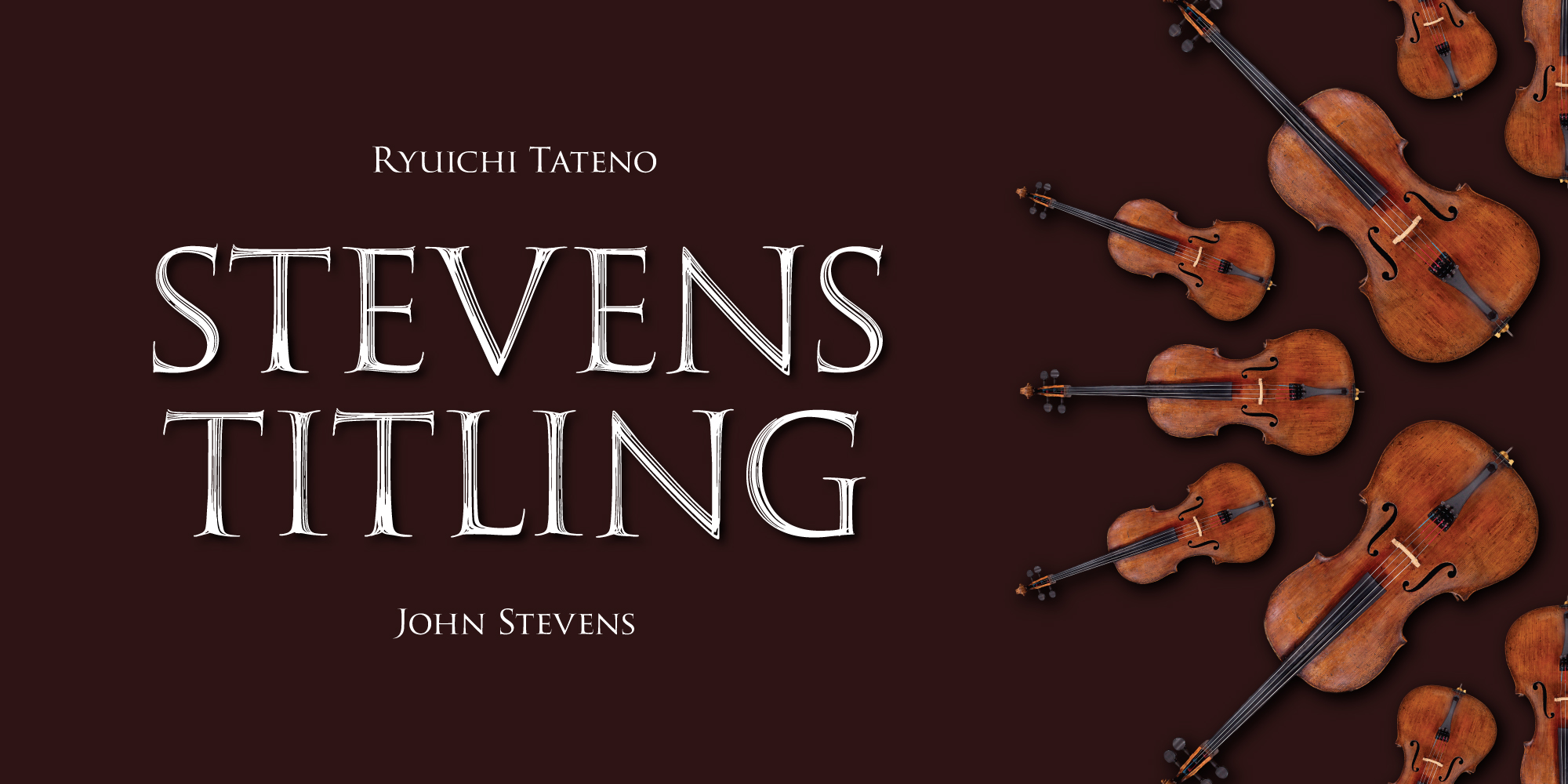
Stevens Titling Font excels in luxury branding, high-end packaging design, elegant invitations, fashion magazines, upscale restaurant menus, premium product labels, corporate logos, architectural signage, wine labels, and sophisticated marketing materials where refined typography creates an impression of exclusivity and prestige.
What makes Stevens Titling Font exciting is its masterful combination of classical Roman proportions with contemporary refinement. This font features beautifully carved letterforms that exhibit exceptional craftsmanship through subtle contrast variations and graceful curves. The precise spacing and balanced character widths create harmonious text flow that commands attention while maintaining sophisticated elegance. Its distinctive personality makes it perfect for brands seeking to convey luxury, tradition, and timeless quality.
Stevens Titling Font family includes carefully crafted variations such as Regular, Medium, Bold, and Extra Bold weights, along with their corresponding italic styles. The family also features small caps, alternate characters, and decorative elements that enhance typographic versatility. Each weight maintains the font's inherent elegance while offering different levels of visual impact for complex design hierarchies.
The Stevens Titling Font Free Download offers designers access to premium typography that elevates any project with its distinguished character. This font's architectural precision and classical inspiration make it ideal for memorial inscriptions, historical publications, and prestigious institutional communications. Its versatility extends to modern applications including digital interfaces, website headers, and contemporary branding where timeless elegance is essential.
Stevens Titling Font supports comprehensive character sets including extensive punctuation, mathematical symbols, and multilingual support for European languages. The font's OpenType features include advanced kerning pairs, stylistic alternates, and ligatures that ensure professional-quality typography. Its consistent baseline and carefully adjusted metrics provide smooth text rendering across various sizes and applications.
The font's authoritative presence makes it particularly effective for headlines, titles, and display applications where impact and readability are crucial. Whether designing corporate annual reports, luxury catalogs, or premium packaging, Stevens Titling Font delivers sophisticated results that enhance brand perception and create memorable visual experiences for discerning audiences.